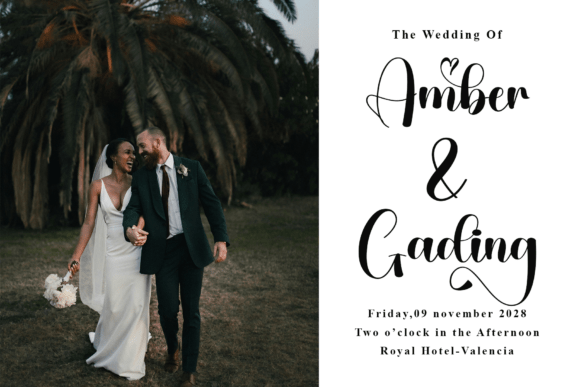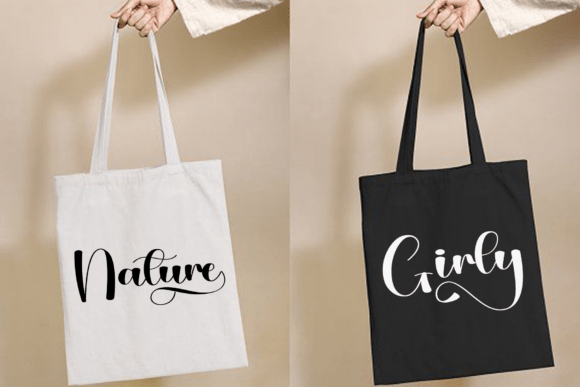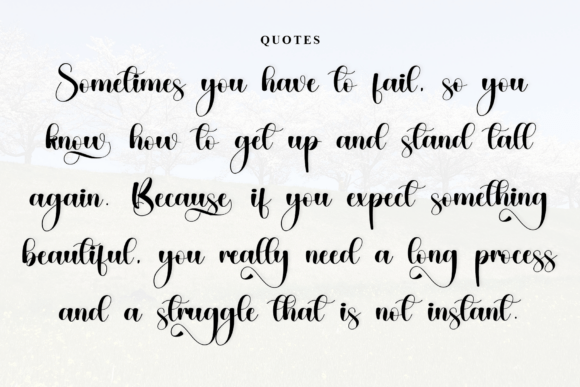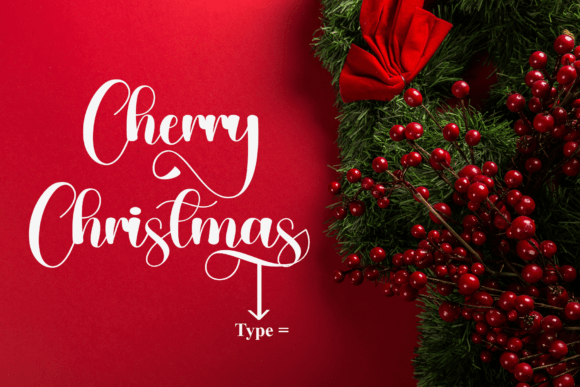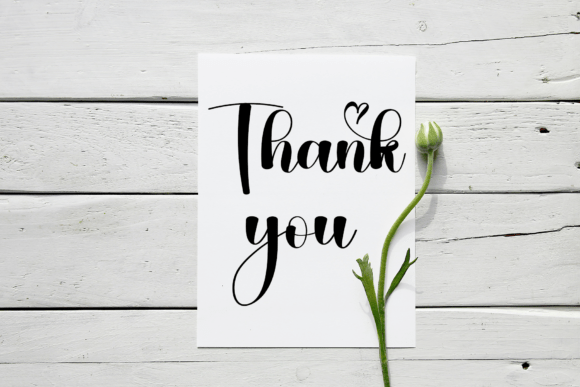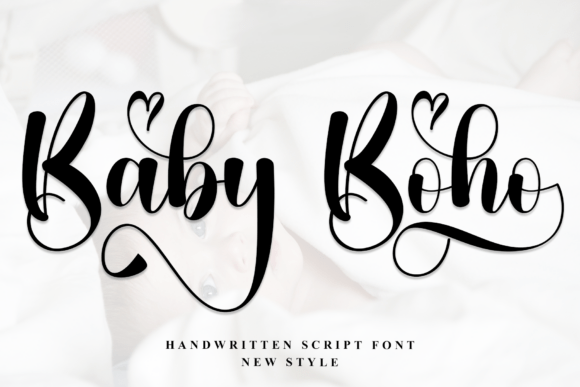
Baby Boho Font: The Perfect Choice for Designers and Crafters
In the world of typography, fonts play a crucial role in making or breaking a design. For designers and crafters, finding the right font can be a daunting task, especially when it comes to creating eye-catching logos, branding, and quotes. This is where the Baby Boho Font comes in – a lovely and timeless handwritten font that is sure to elevate your designs to the next level.
What is Baby Boho Font?
Baby Boho Font is a beautiful, handwritten font that exudes a sense of elegance and sophistication. Its unique and beautiful touch makes it perfect for creating stunning logos, branding, and quotes that will leave a lasting impression on your audience. The font’s timeless design ensures that it will remain relevant for years to come, making it a great investment for designers and crafters.
Features of Baby Boho Font
So, what makes Baby Boho Font so special? Here are some of its key features:
- Unique and Beautiful Touch: Every letter in the Baby Boho Font has a unique and beautiful touch, which makes it stand out from other fonts.
- Timeless Design: The font’s design is timeless, ensuring that it will remain relevant for years to come.
- Handwritten Style: The font’s handwritten style gives it a personal and organic feel, making it perfect for creating logos, branding, and quotes.
- Elegant and Sophisticated: The font’s elegant and sophisticated design makes it perfect for creating high-end designs.
Uses of Baby Boho Font
Baby Boho Font is a versatile font that can be used for a variety of design projects, including:
- Logo Design: The font’s unique and beautiful touch makes it perfect for creating eye-catching logos that will leave a lasting impression on your audience.
- Branding: The font’s elegant and sophisticated design makes it perfect for creating branding materials, such as business cards, brochures, and letterheads.
- Quotes and Posters: The font’s handwritten style makes it perfect for creating stunning quotes and posters that will grab the attention of your audience.
- Crafting and DIY Projects: The font’s personal and organic feel makes it perfect for crafting and DIY projects, such as handmade cards, gift tags, and scrapbooking.
Why Choose Baby Boho Font?
So, why should you choose Baby Boho Font for your design projects? Here are some reasons:
- Unique and Eye-Catching: The font’s unique and beautiful touch makes it perfect for creating eye-catching designs that will leave a lasting impression on your audience.
- Timeless Design: The font’s timeless design ensures that it will remain relevant for years to come, making it a great investment for designers and crafters.
- Versatile: The font’s versatility makes it perfect for a variety of design projects, from logos and branding to quotes and posters.
- Elegant and Sophisticated: The font’s elegant and sophisticated design makes it perfect for creating high-end designs that will impress your audience.
In conclusion, Baby Boho Font is a lovely and timeless handwritten font that is perfect for designers and crafters. Its unique and beautiful touch, elegant and sophisticated design, and versatility make it a great choice for creating eye-catching logos, branding, and quotes. Whether you’re a professional designer or a crafter, Baby Boho Font is sure to elevate your designs to the next level.